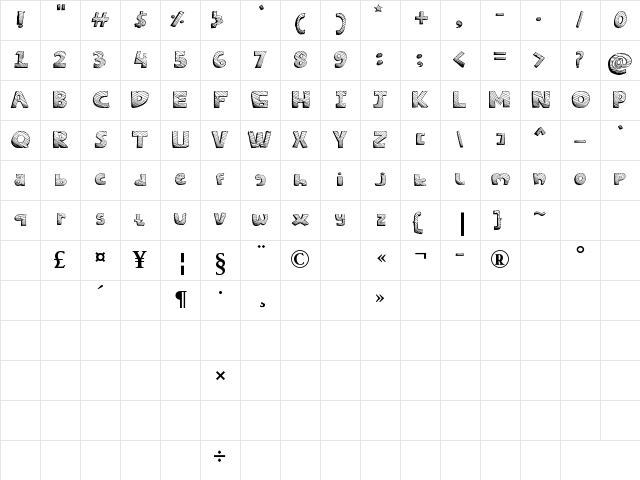
sketches Bold Free Font
sketches Bold
Design Context for sketches
sketches is a composed and adaptable typeface that performs quietly and consistently across a wide range of design contexts. Its bold stroke weight gives it real presence on the page.